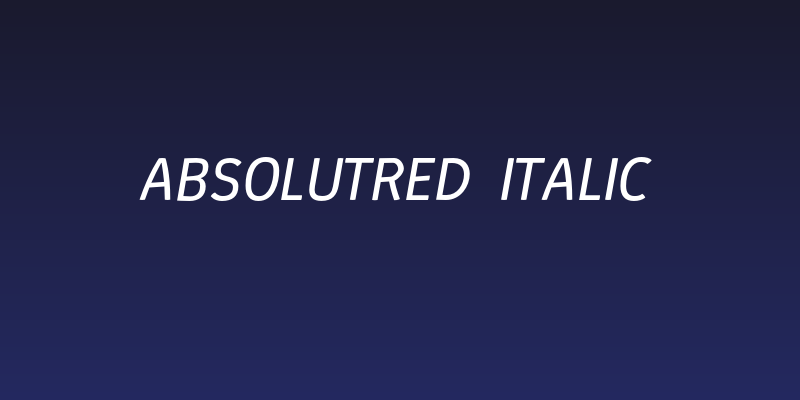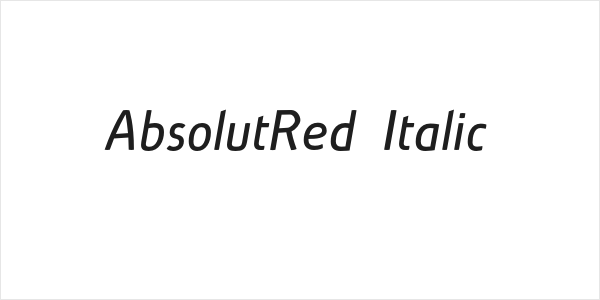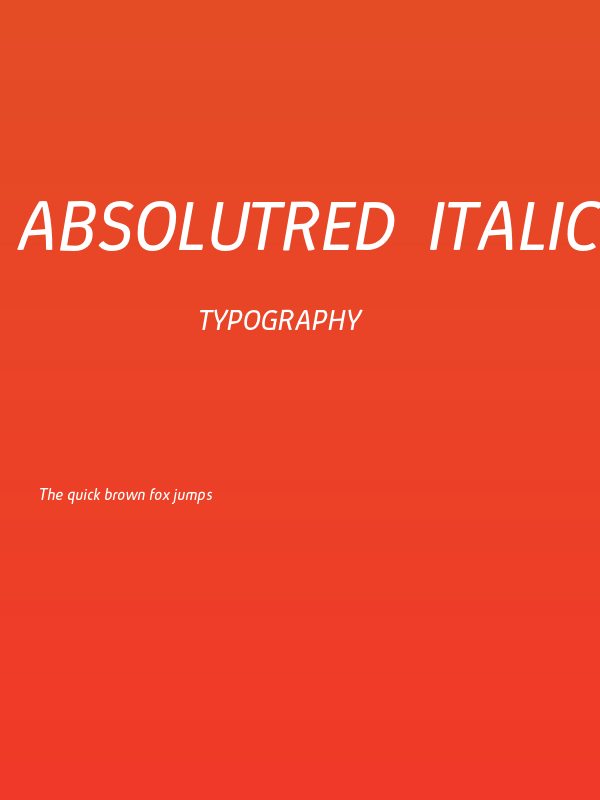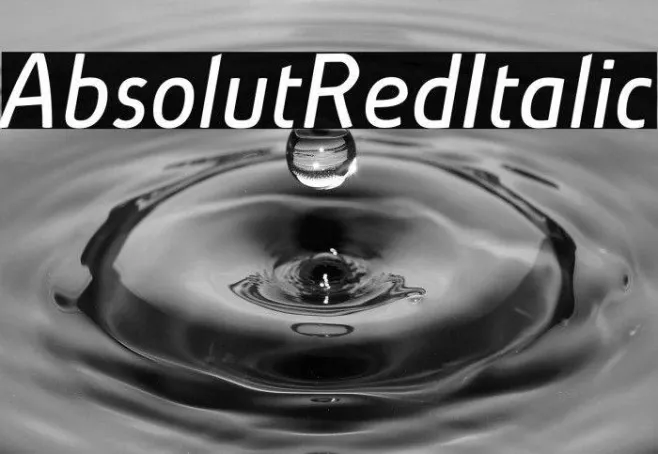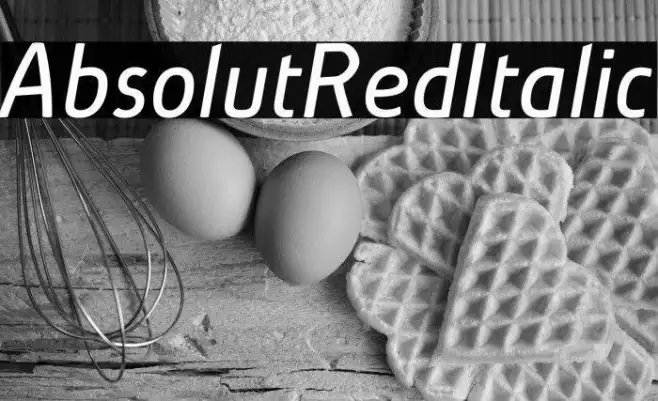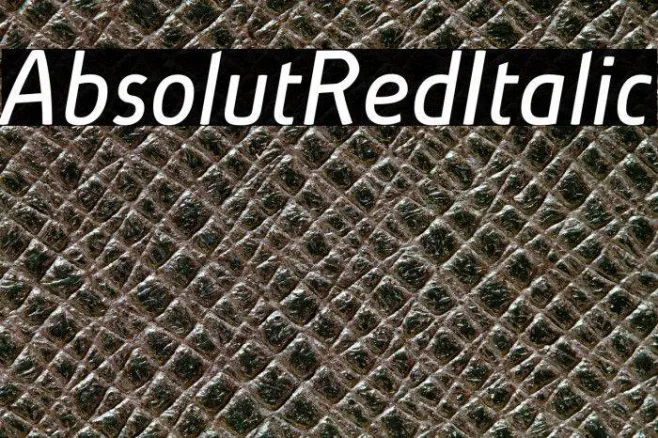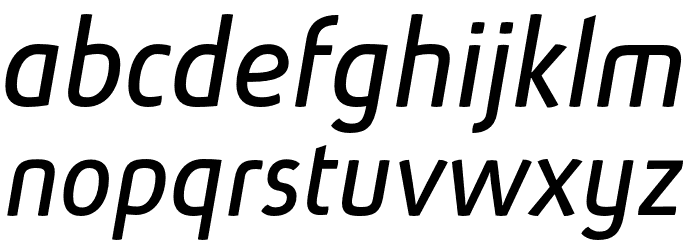
AbsolutRed-Italic Font
AbsolutRed-Italic Description
This font features a sleek, modern design with a slight italic slant, giving it a dynamic and forward-moving appearance. The characters are clean and sans-serif, providing a contemporary look that is both professional and approachable. The strokes are consistent in weight, offering a uniform appearance across all characters. The font maintains a balanced proportion between height and width, ensuring readability while adding a touch of elegance. The overall style is minimalistic, making it versatile for various design applications.
| Proposed Projects | Ideal for branding, advertising, and digital media projects where a modern and professional look is desired. |